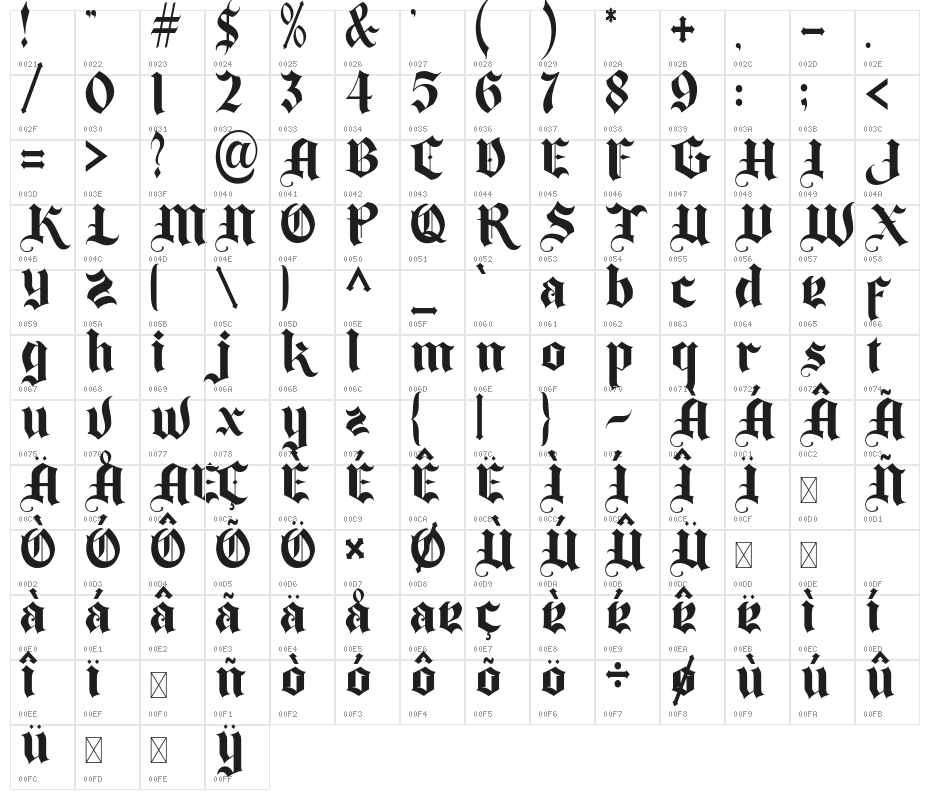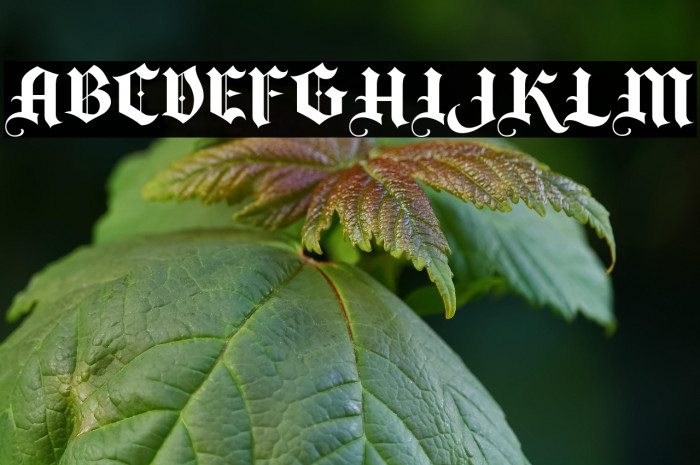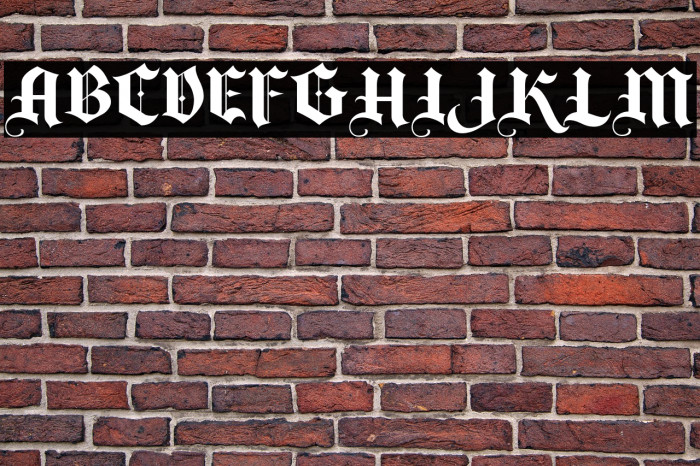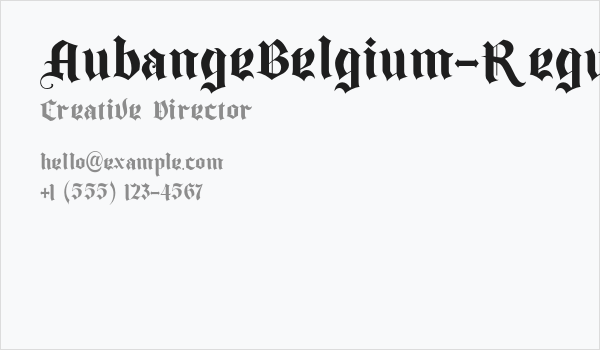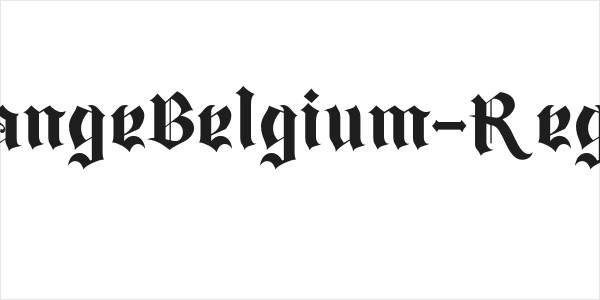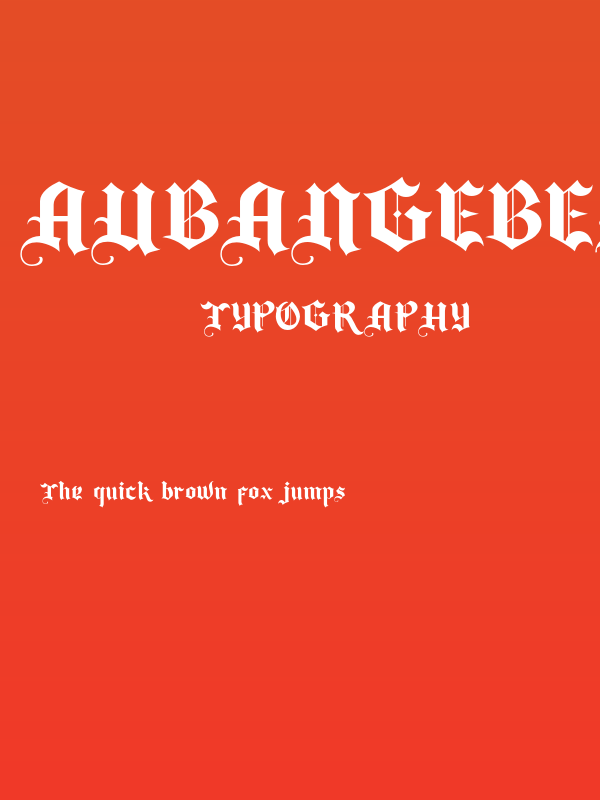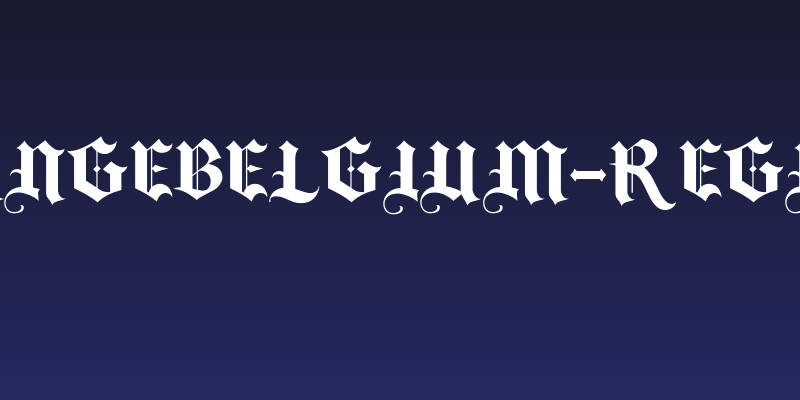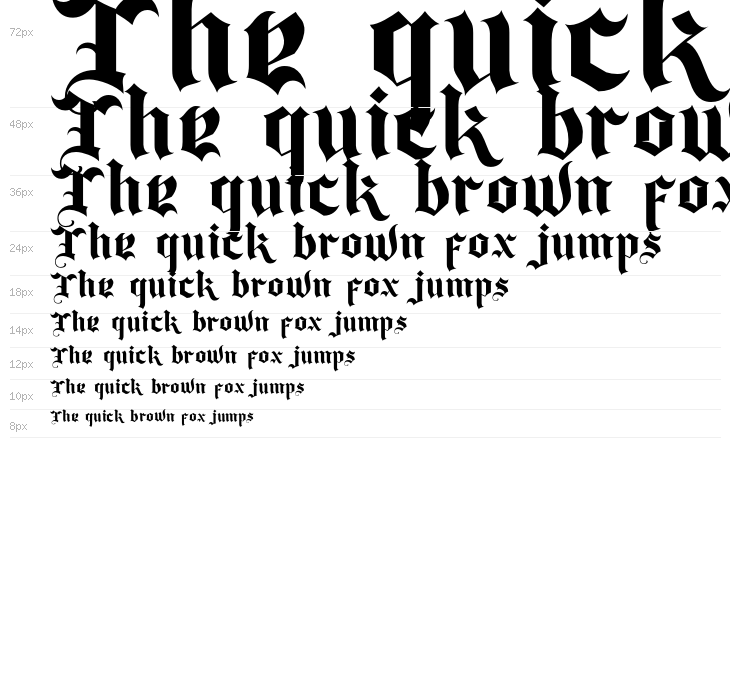
AubangeBelgium-Regular Font
AubangeBelgium-Regular Description
This font exhibits a classic blackletter style, characterized by its ornate and intricate design. The letters feature sharp, angular lines with decorative flourishes, giving it a medieval and gothic appearance. The uppercase letters are particularly elaborate, with extended serifs and unique embellishments. The lowercase letters maintain a consistent style, with a slightly more subdued design compared to the uppercase. The numerals are bold and follow the same angular and decorative theme. Special characters are also included, matching the overall aesthetic with their intricate details. This font is ideal for projects that require a historical or traditional touch, such as invitations, certificates, or branding that seeks to evoke a sense of heritage.
| Proposed Projects | Ideal for historical documents, invitations, certificates, and branding with a traditional or gothic theme. |